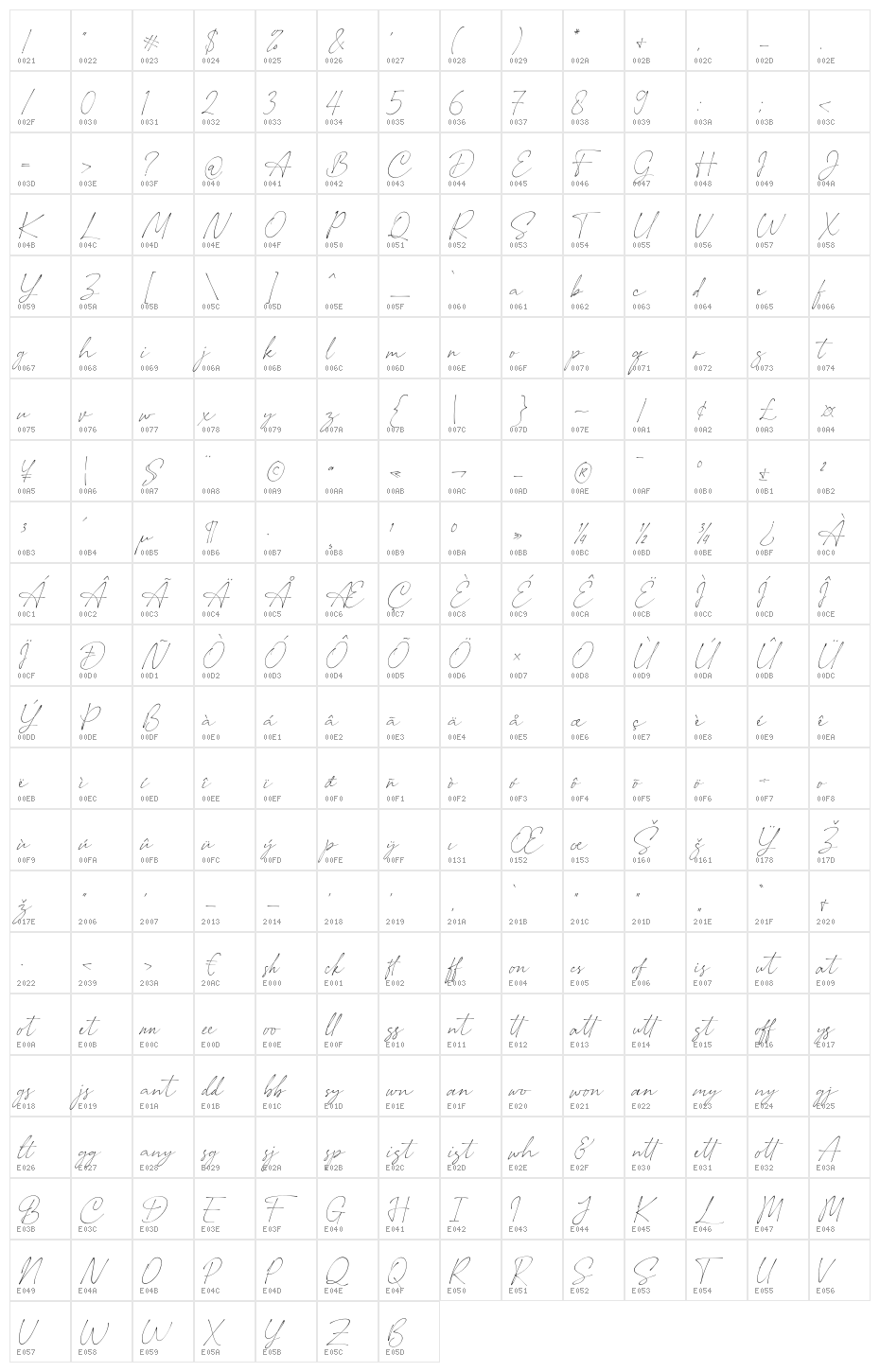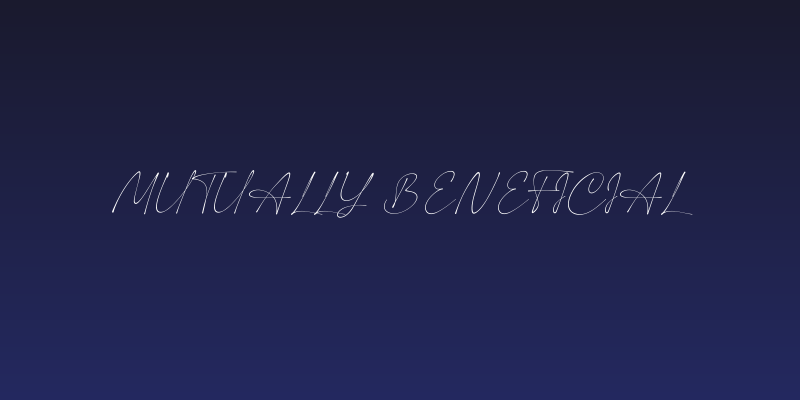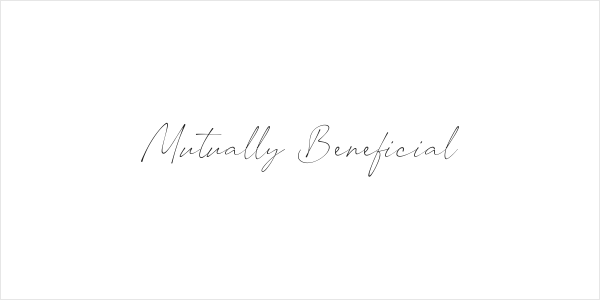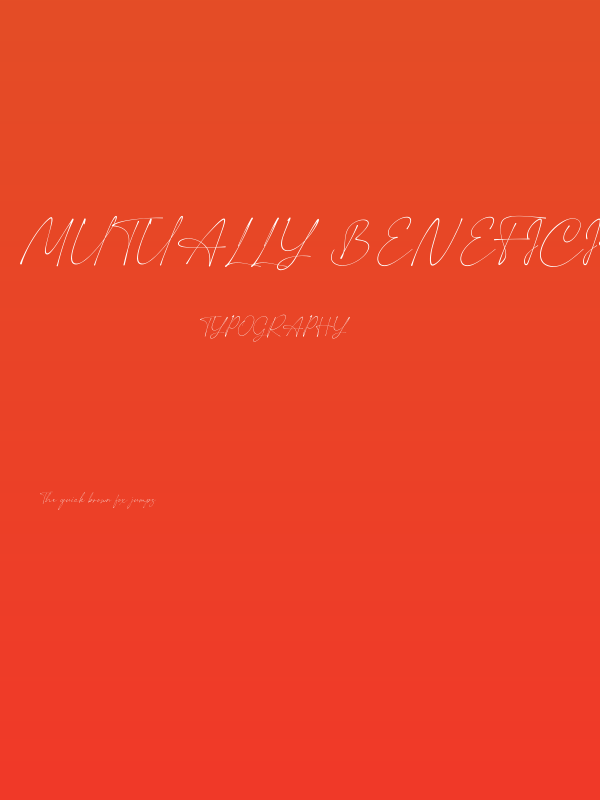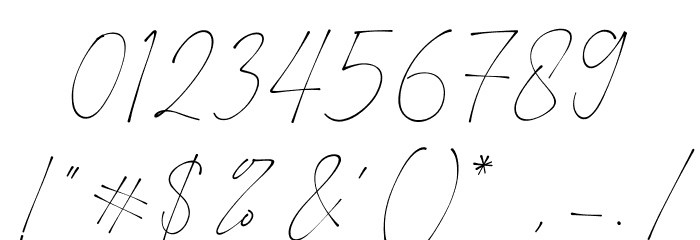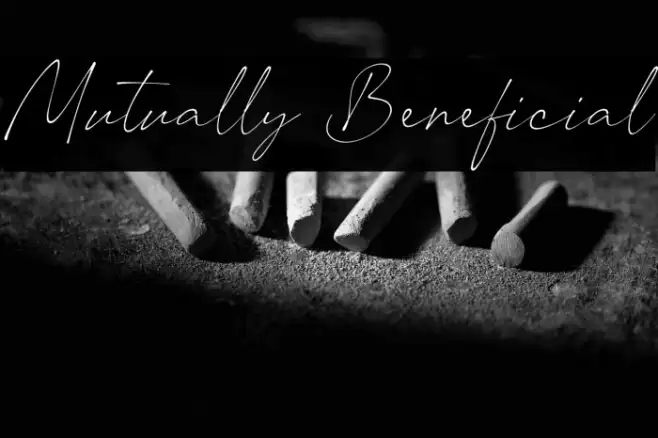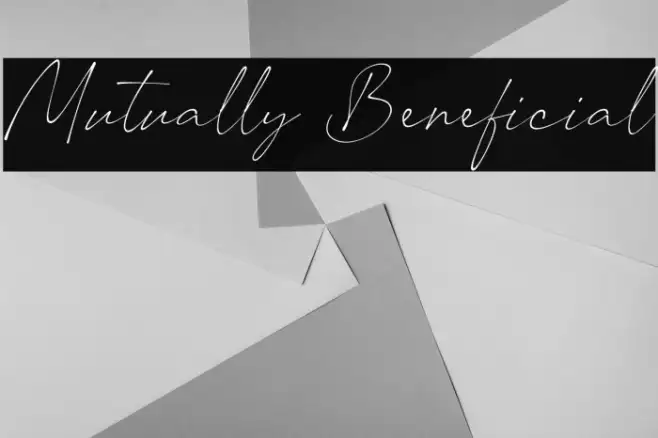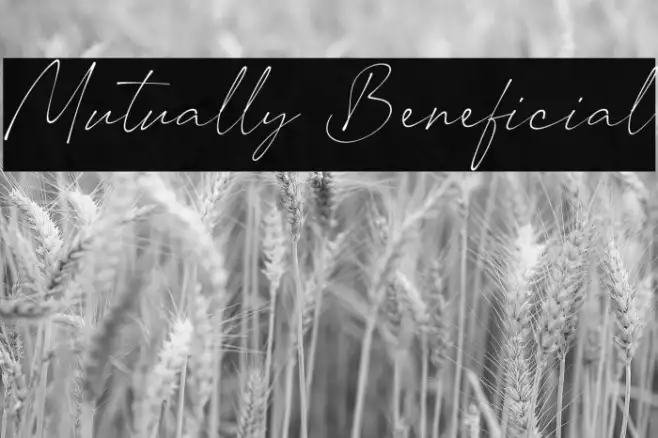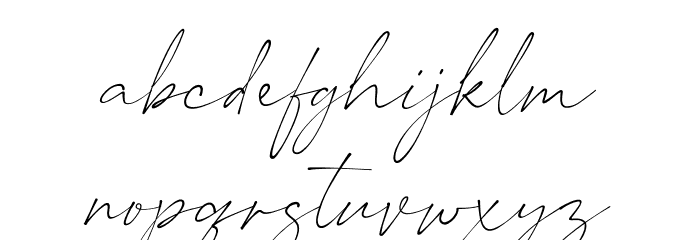
Mutually Beneficial Font
Mutually Beneficial Description
This elegant script font features a delicate and flowing style, reminiscent of traditional cursive handwriting. The characters are connected with smooth, sweeping strokes that give it a graceful and sophisticated appearance. The uppercase letters are slightly larger and more ornate, while the lowercase letters maintain a consistent flow, enhancing readability. The numerals are rounded and align well with the overall aesthetic, providing a cohesive look. Special characters are thoughtfully designed to match the fluidity of the letters, making this font ideal for projects that require a touch of elegance and personal flair.
| Proposed Projects | Wedding invitations, personal branding, greeting cards, elegant logos, and upscale packaging. |